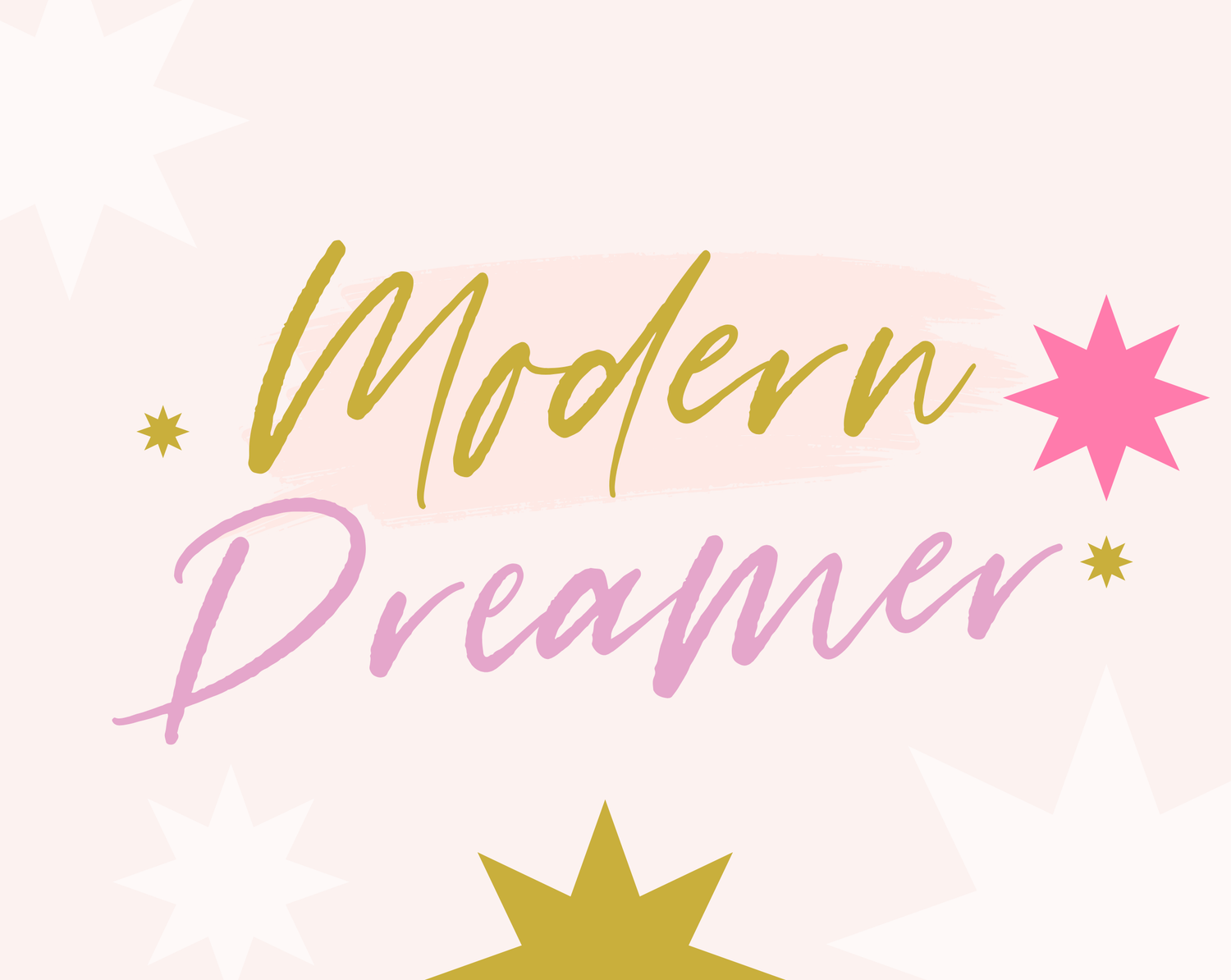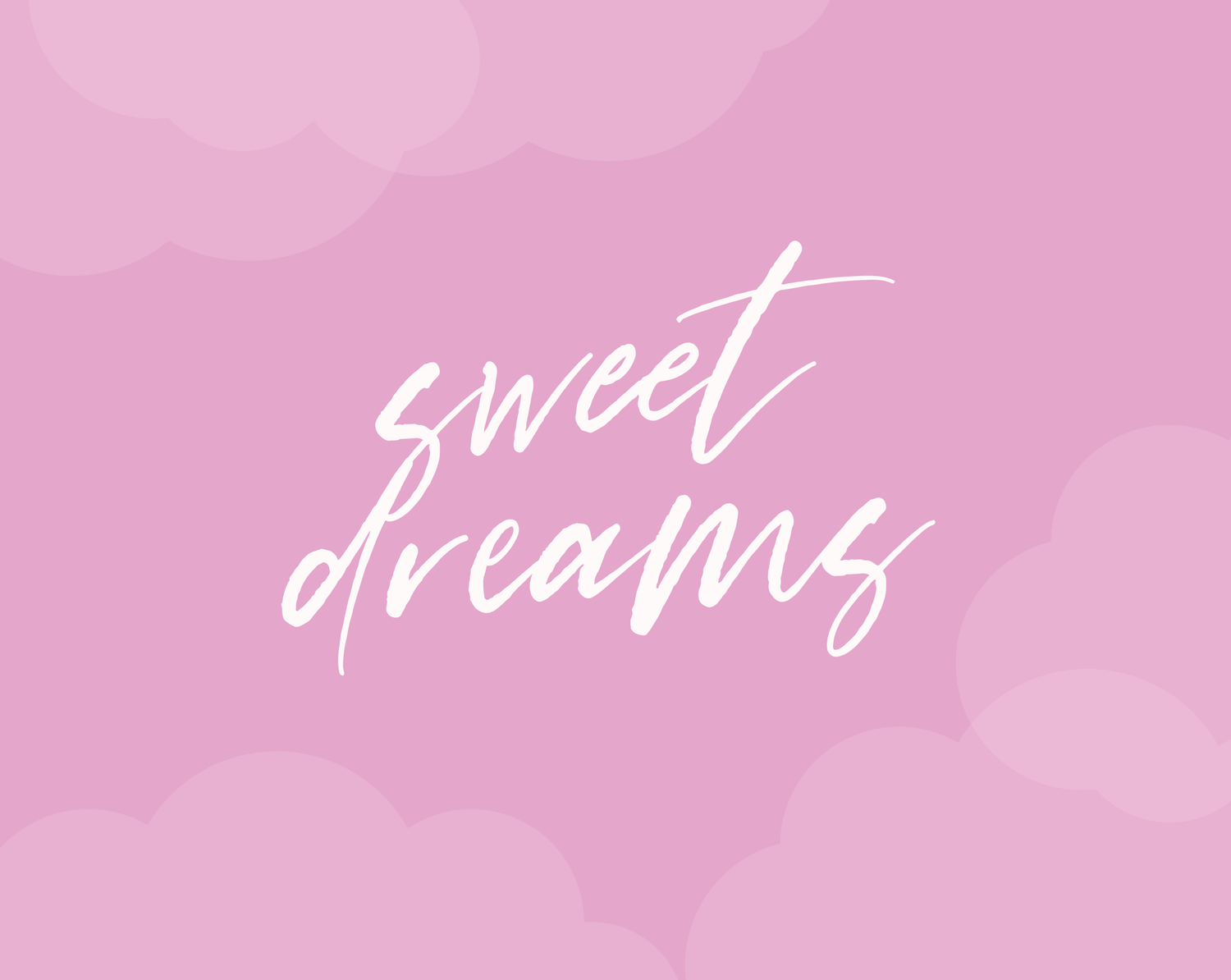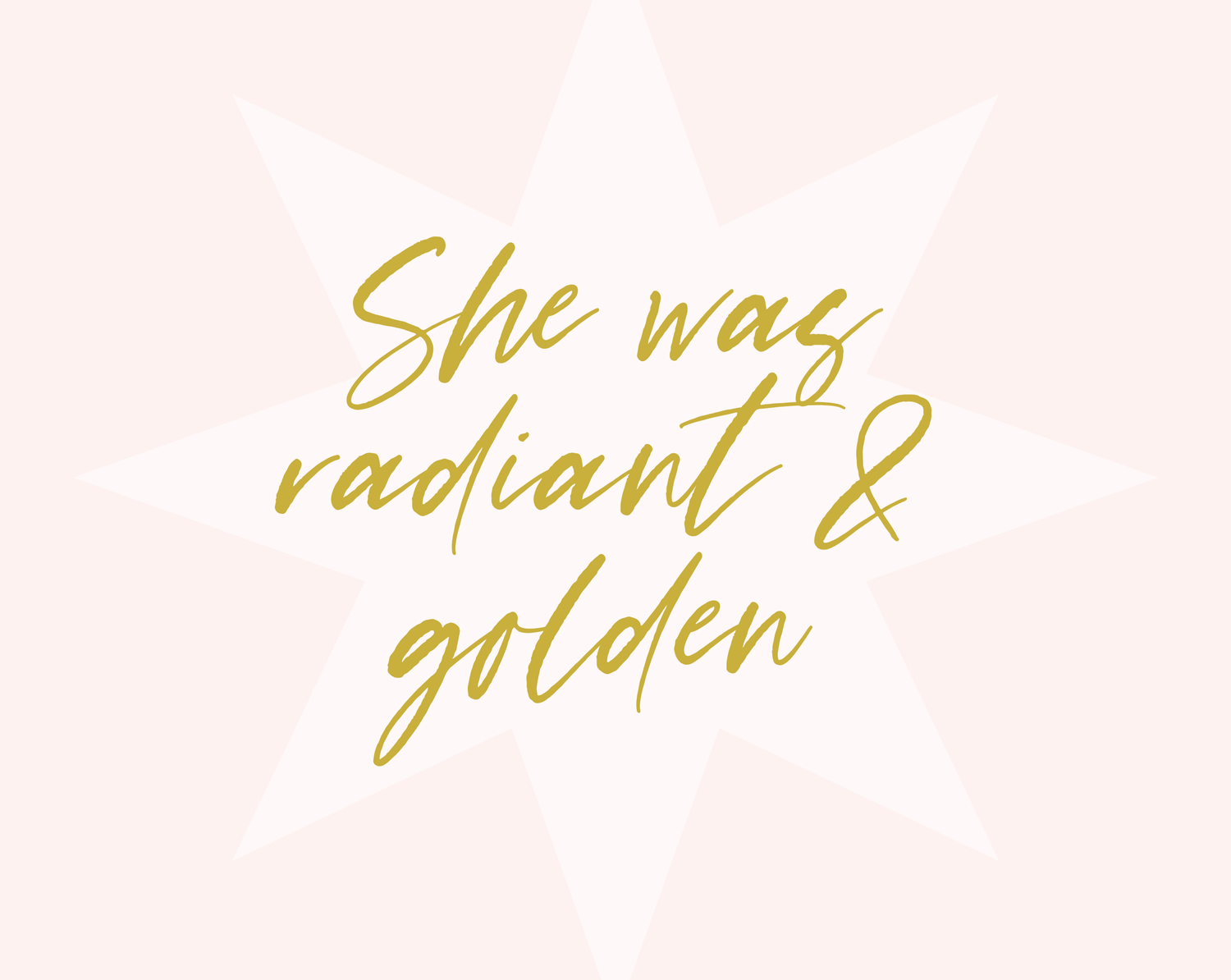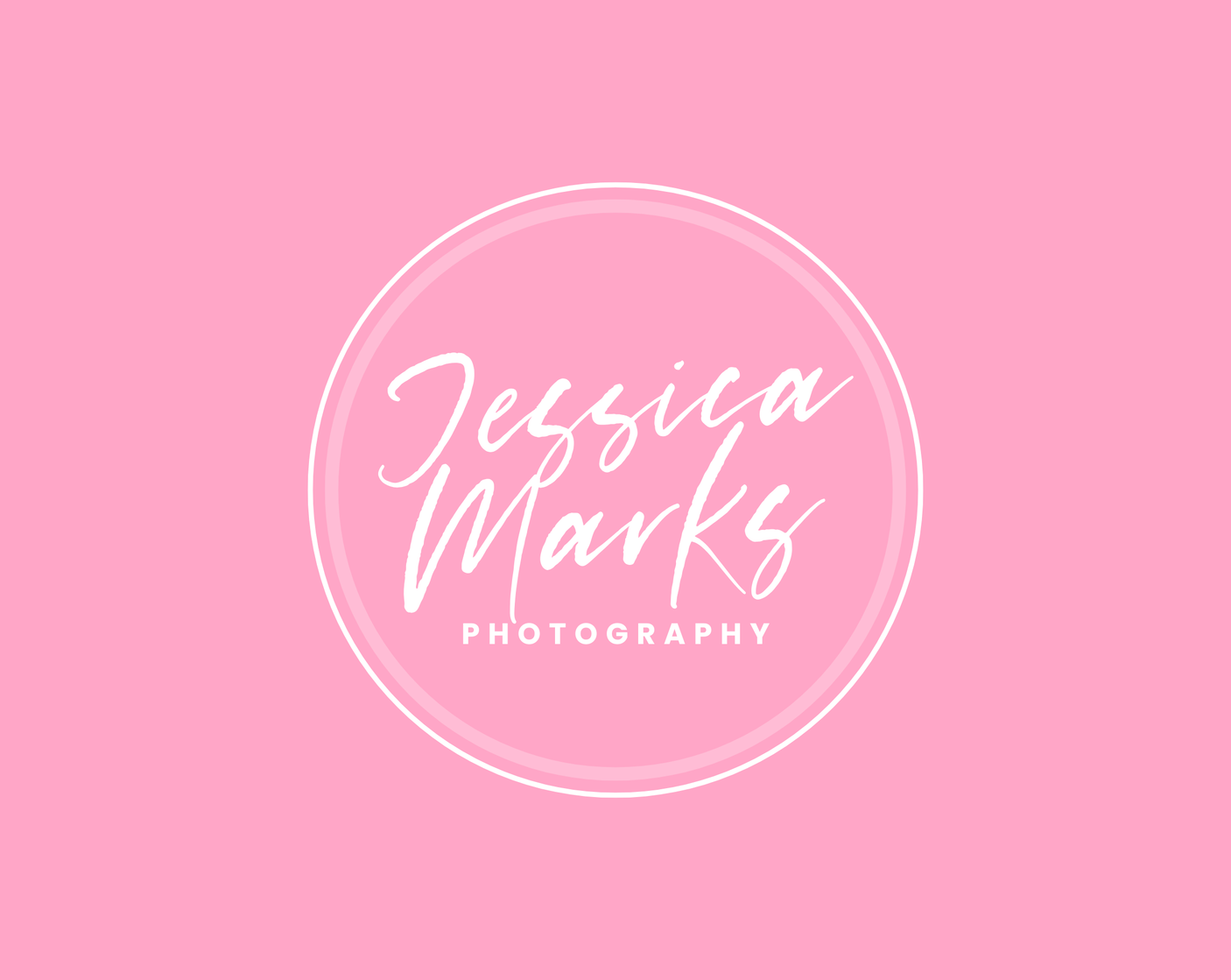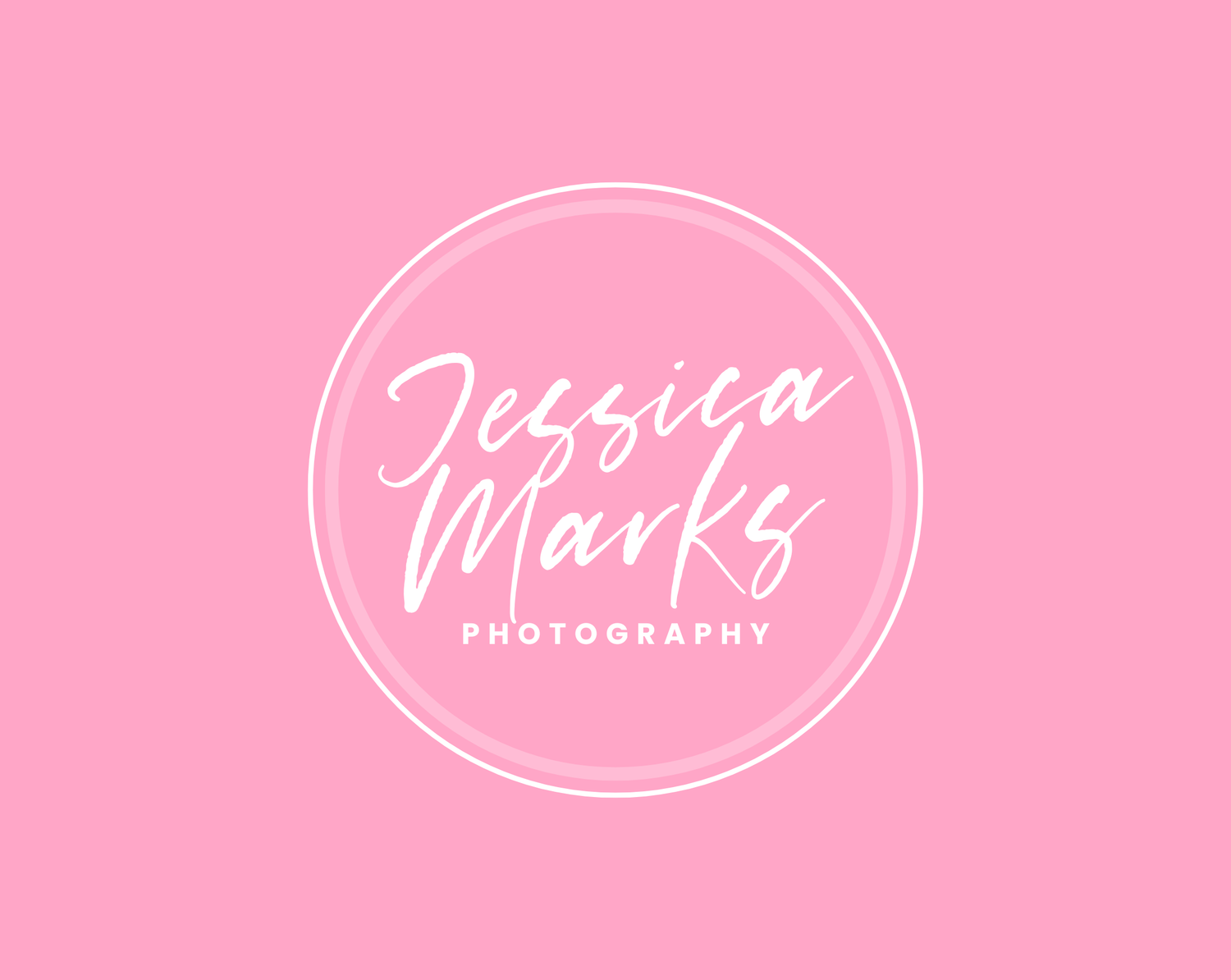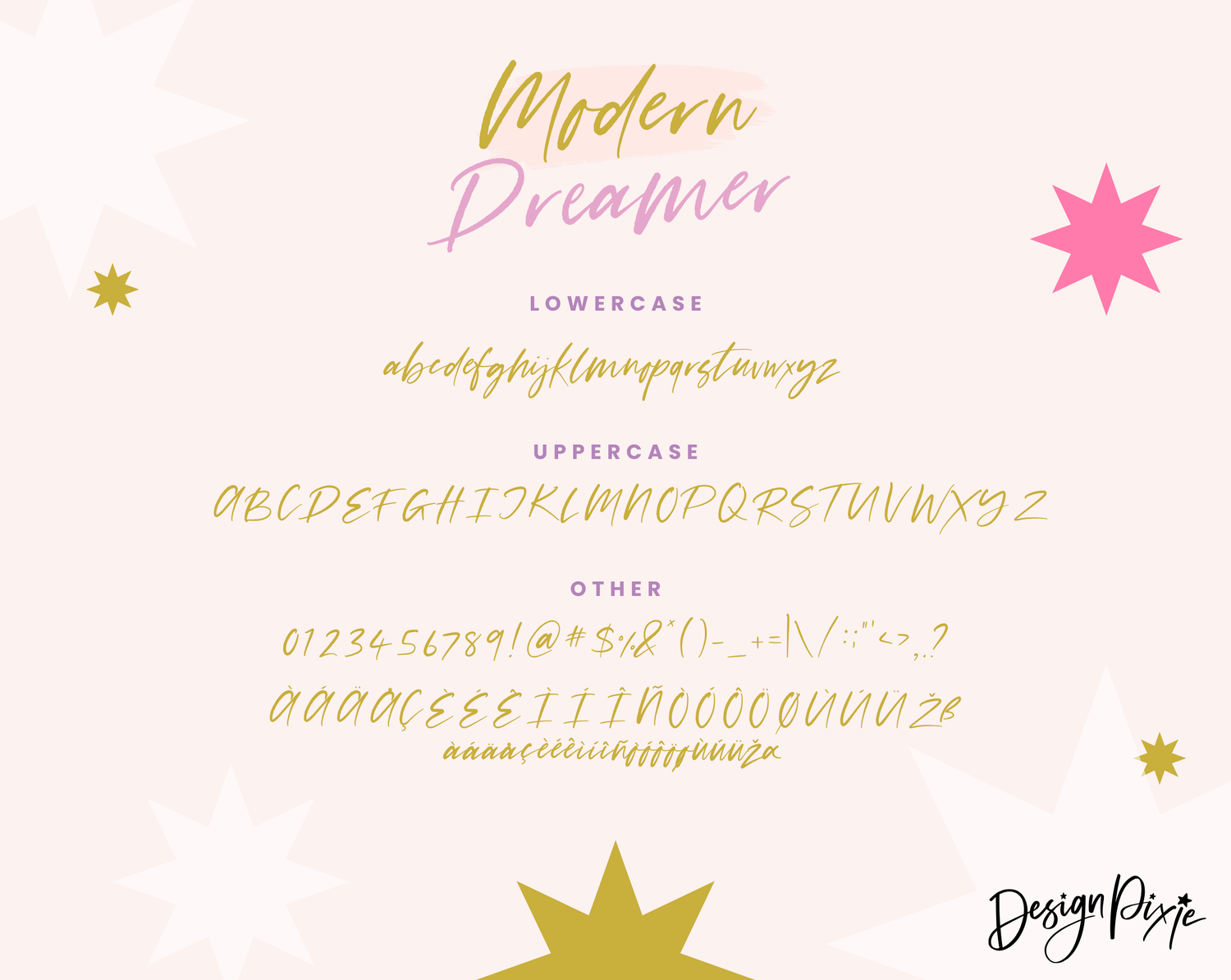
Modern Dreamer Font
Meet Modern Dreamer, a textured handwritten script that feels effortlessly cool and beautifully imperfect. Each letter dances with personality - slanted, rough around the edges, and full of creative charm.
Perfect for adding an authentic handwritten touch to your designs, this font is made for:
• Aesthetic quotes and social posts
• Logos and branding projects
• Invitations, labels, and packaging
• Any creative project that calls for a dreamy, hand-drawn vibe
Whether you’re designing for your own brand or creating something magical for a client, Modern Dreamer brings that relaxed, modern edge that stands out while staying beautifully human.